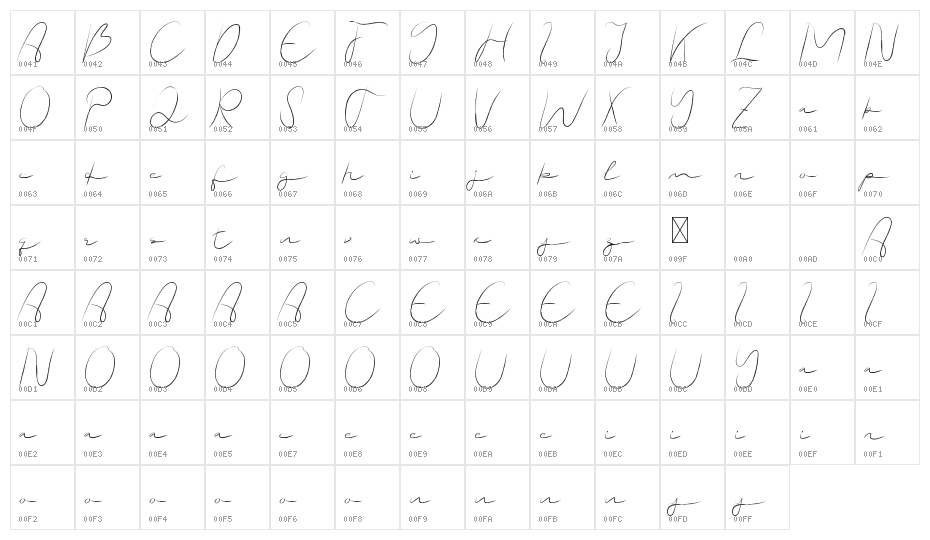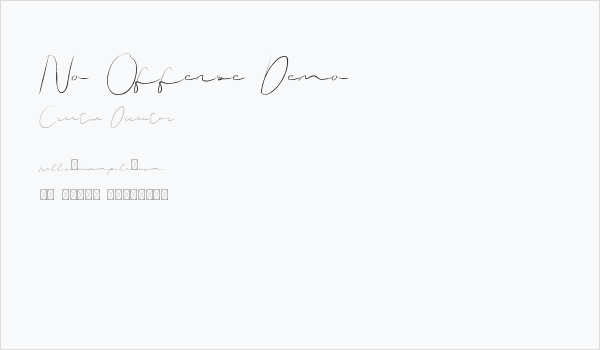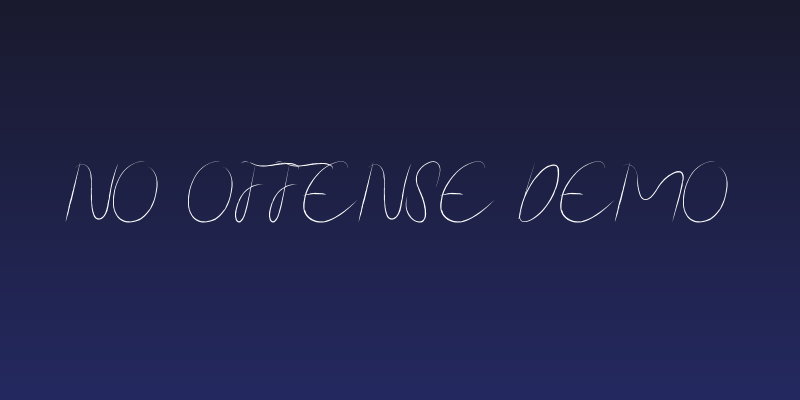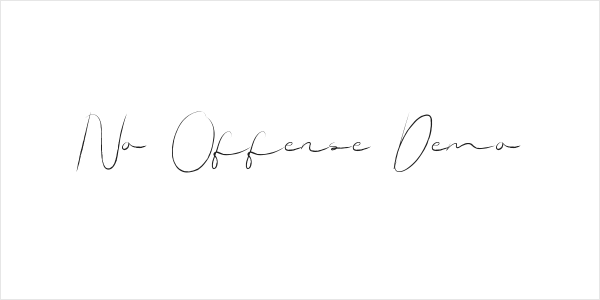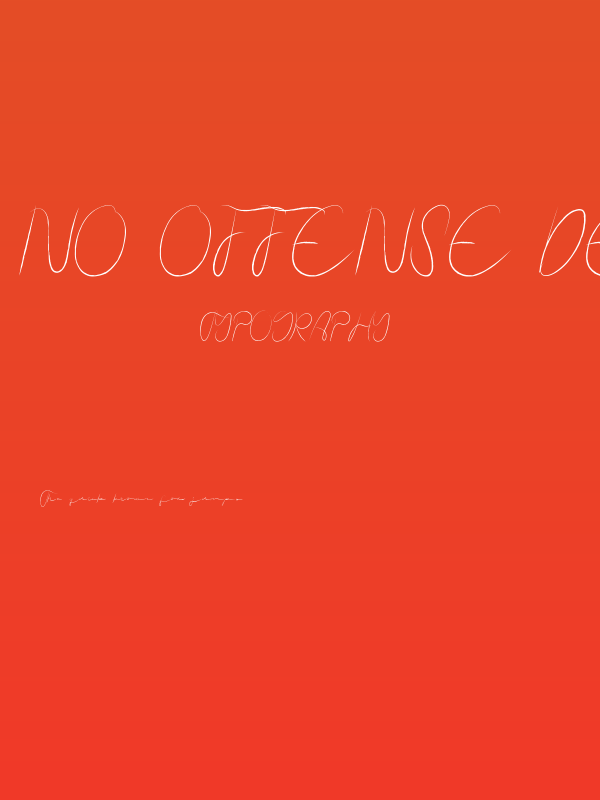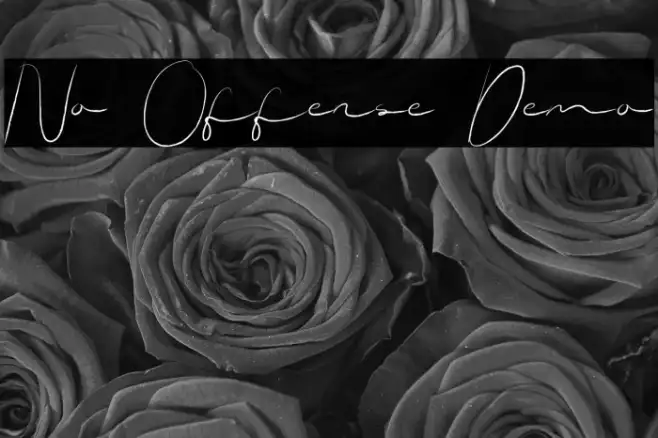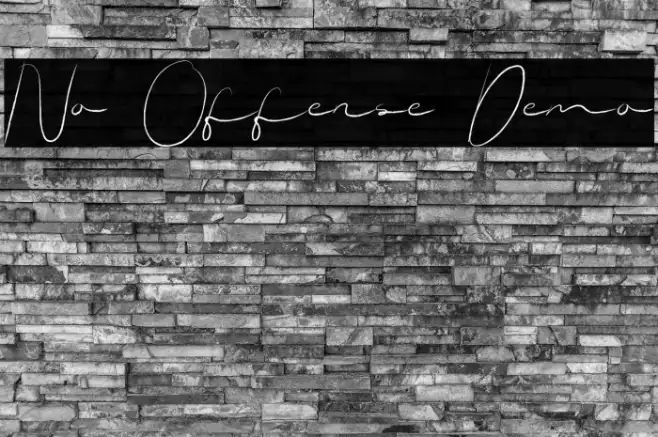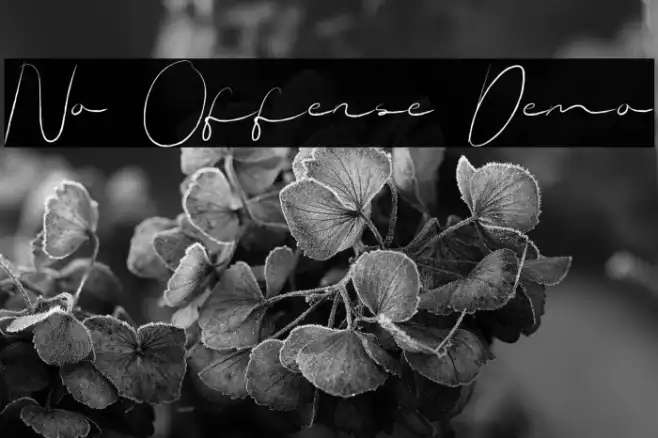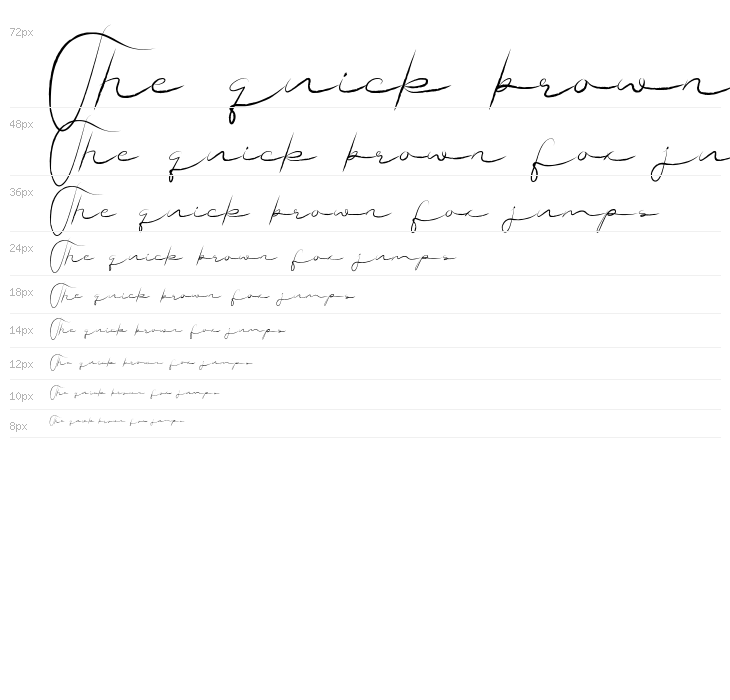
No Offense Demo Font
No Offense Demo Description
This font features an elegant and flowing script style, characterized by its thin, delicate strokes and graceful curves. The uppercase letters exhibit a sense of fluidity and movement, with each character seamlessly connecting to the next. The lowercase letters maintain a consistent style, with elongated ascenders and descenders that add to the font's overall elegance. The numerals and special characters are crafted with the same attention to detail, ensuring a cohesive appearance across all elements. This font's airy and sophisticated design makes it ideal for projects that require a touch of refinement and class.
| Overall Style | Elegant, Sophisticated |